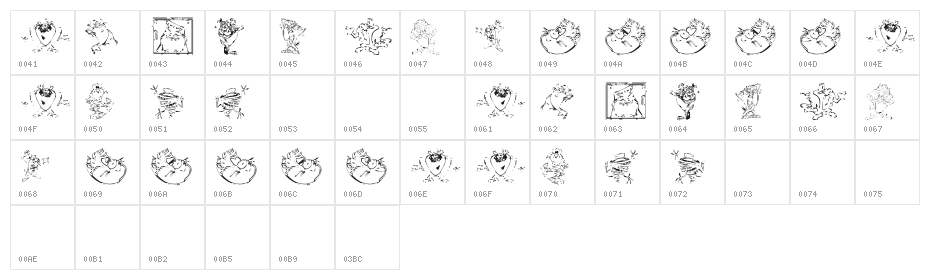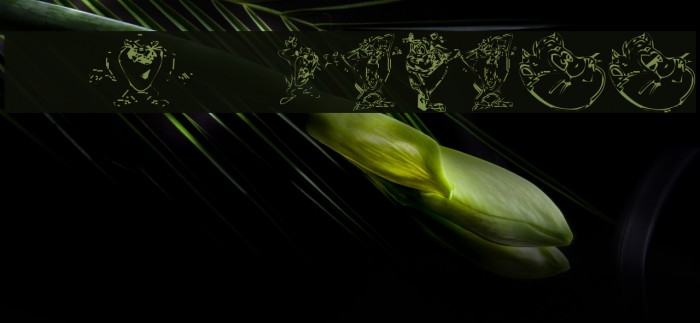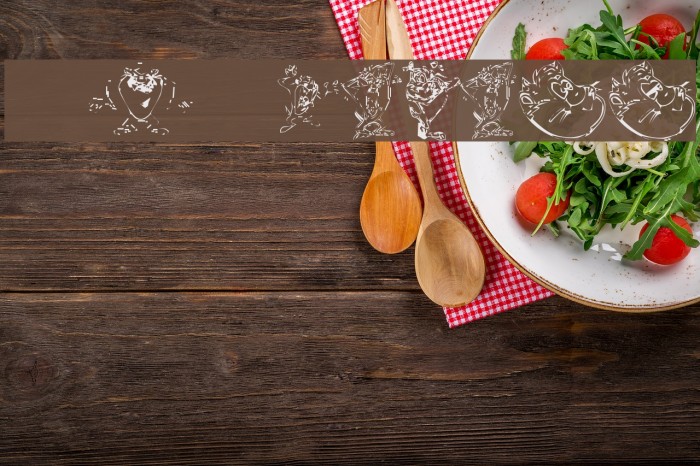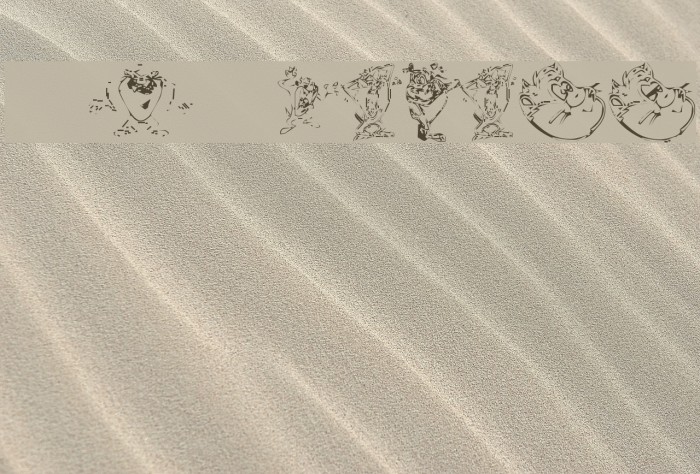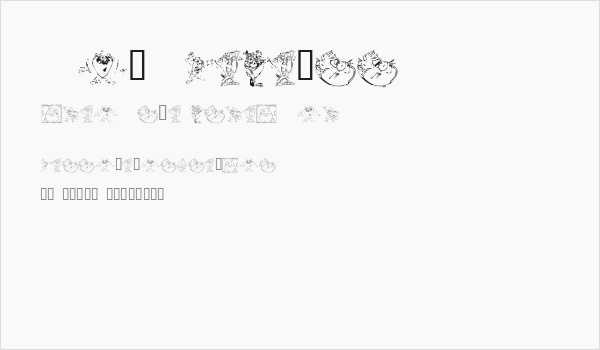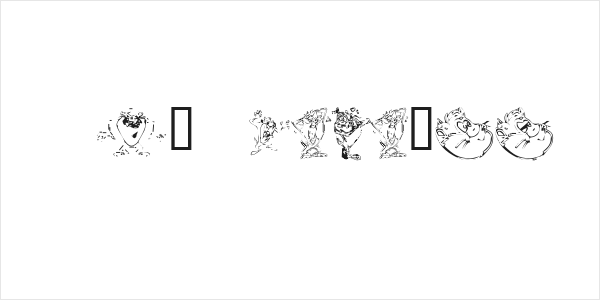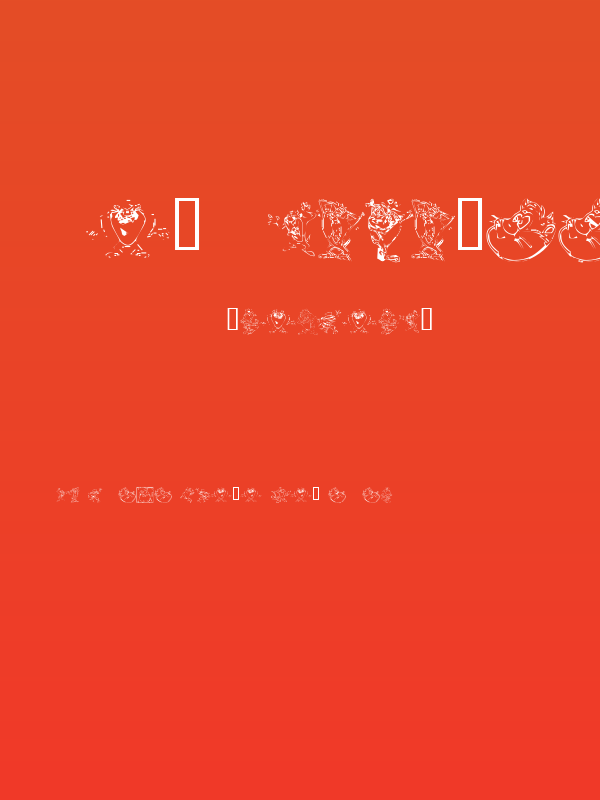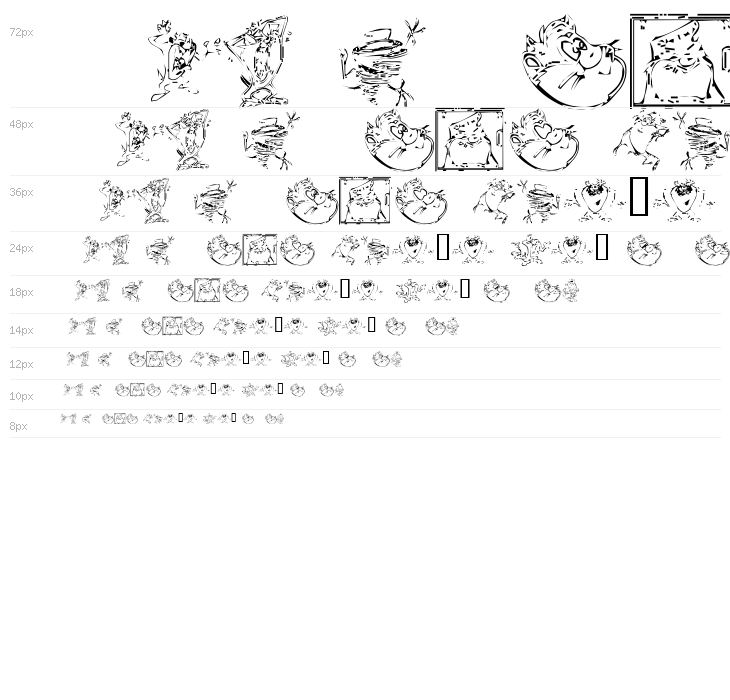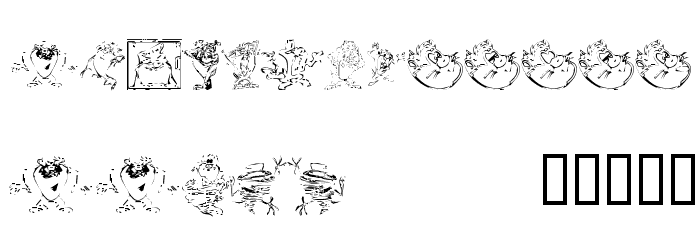
TazTheDevil Font
TazTheDevil Description
A decorative, cartoon-style font featuring playful illustrations of a whirlwind character in various poses, replacing standard alphanumeric characters with detailed drawings. The glyphs are highly stylized and whimsical, with each character depicted in a unique action or expression.
| Overall Style | Decorative, Playful, Cartoon |
| Use Case | Logos, Posters, Themed Graphics, Children's Materials |
| Proposed Projects | Children's party invitations, comic books, themed posters, novelty merchandise, playful branding. |